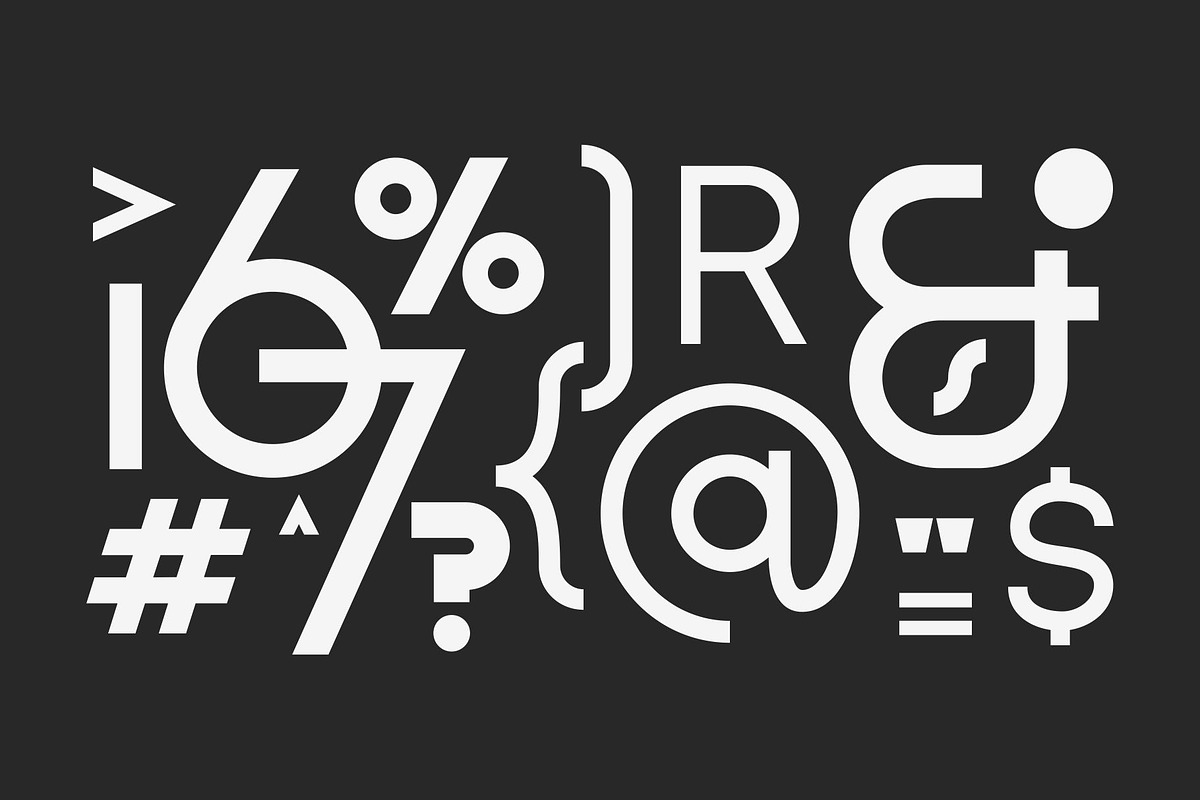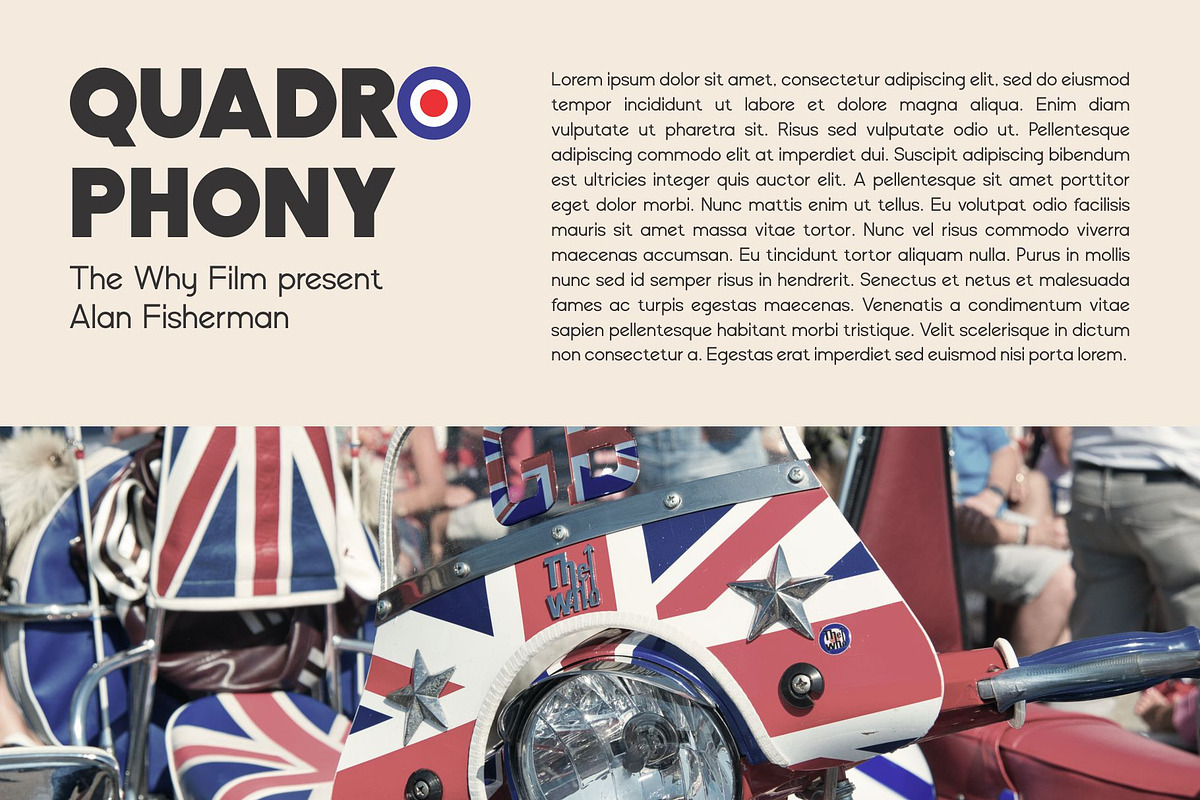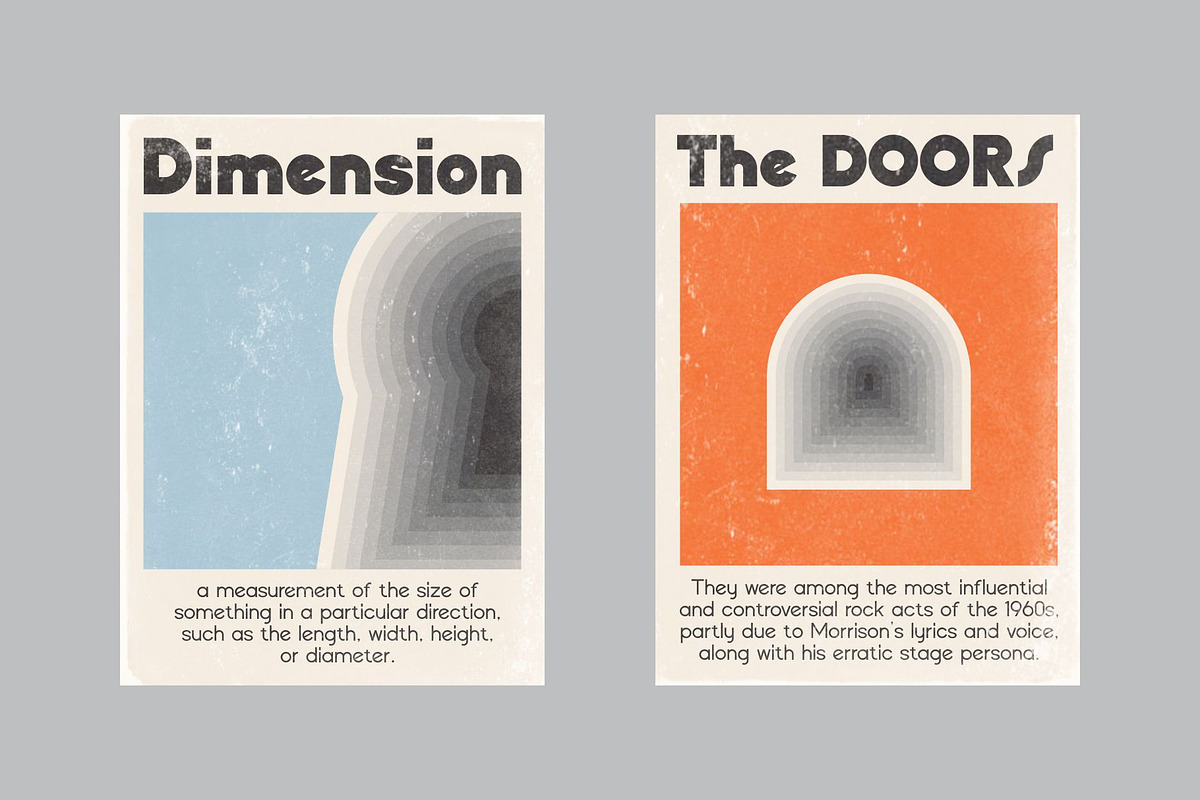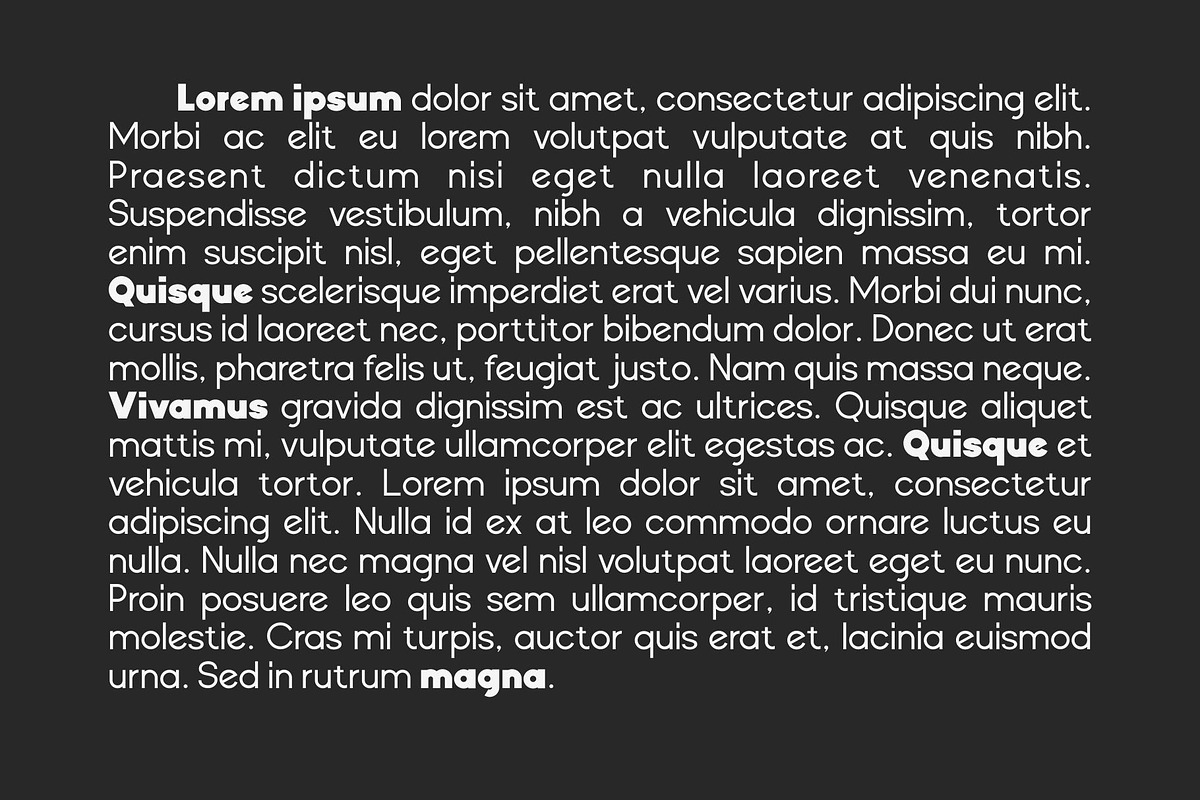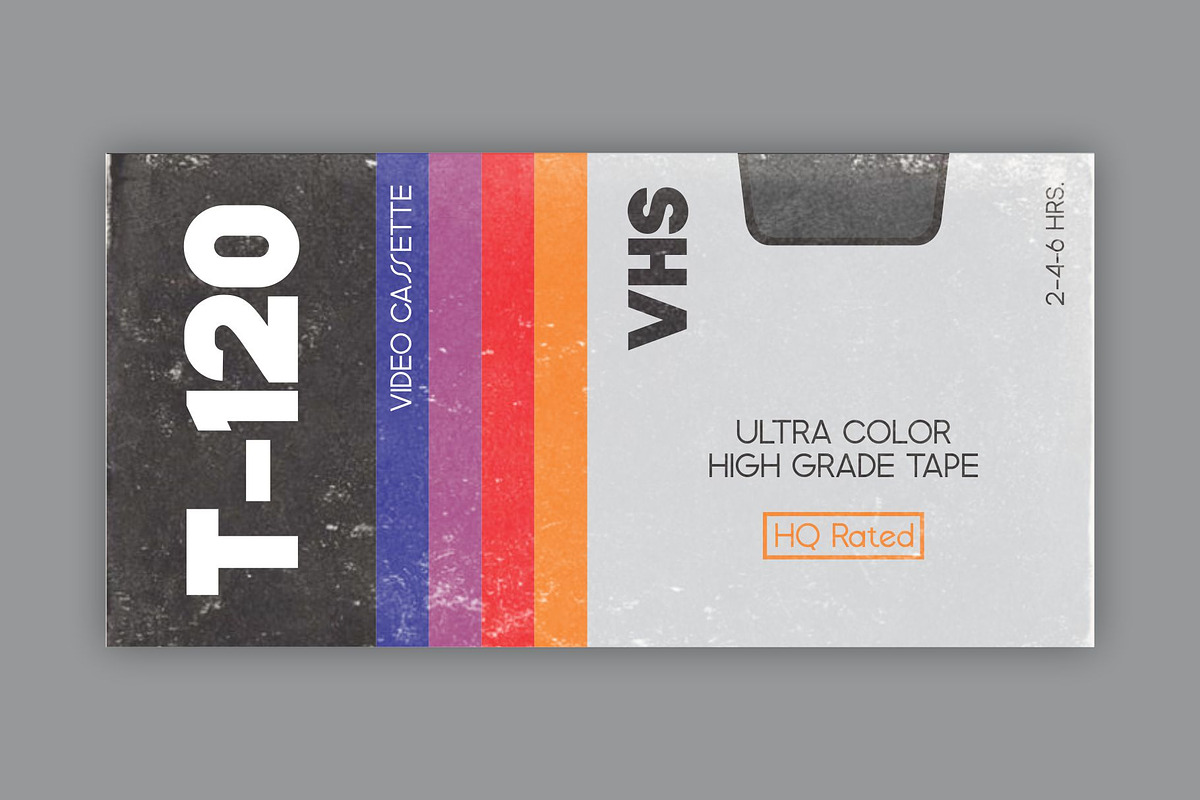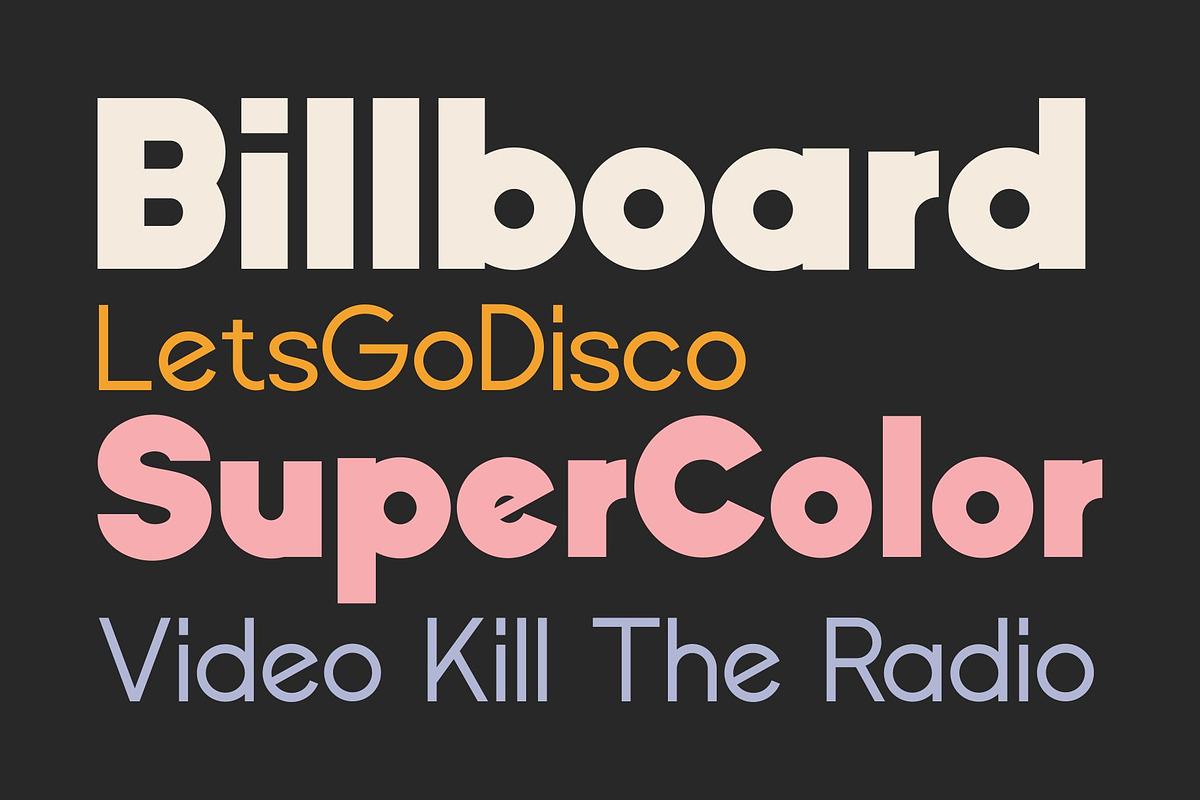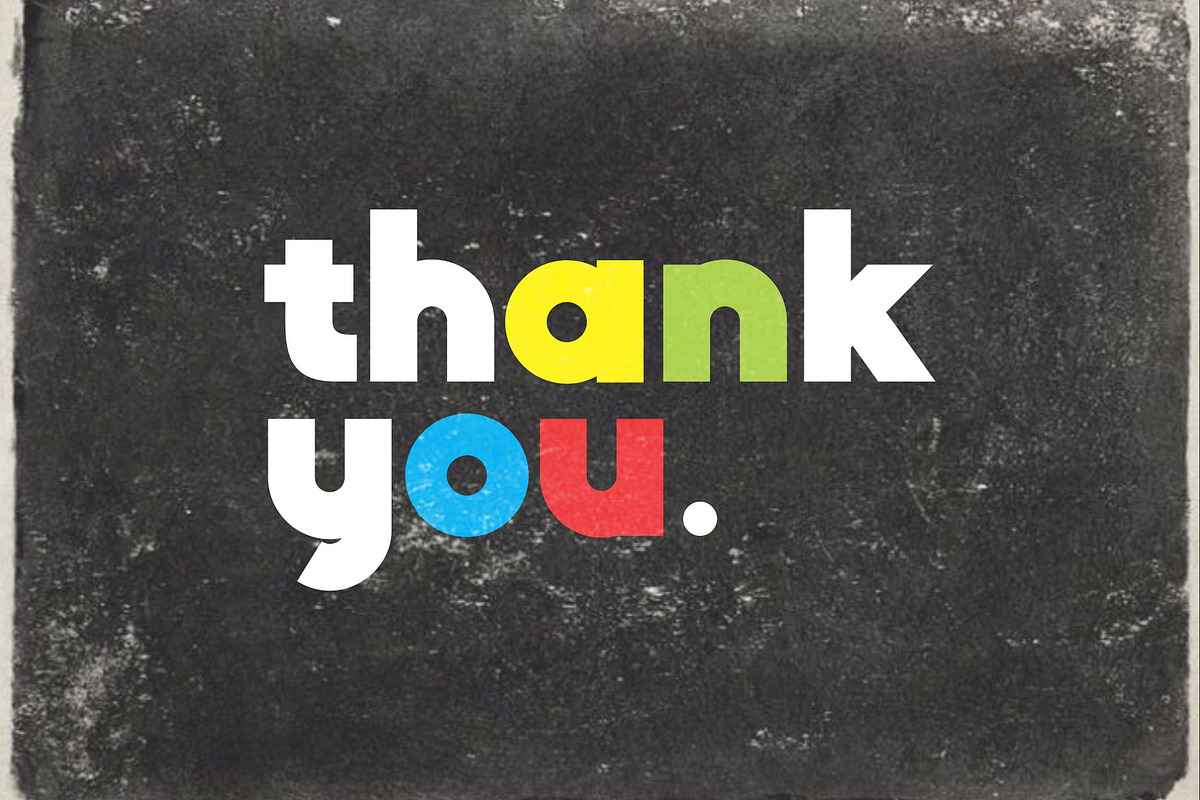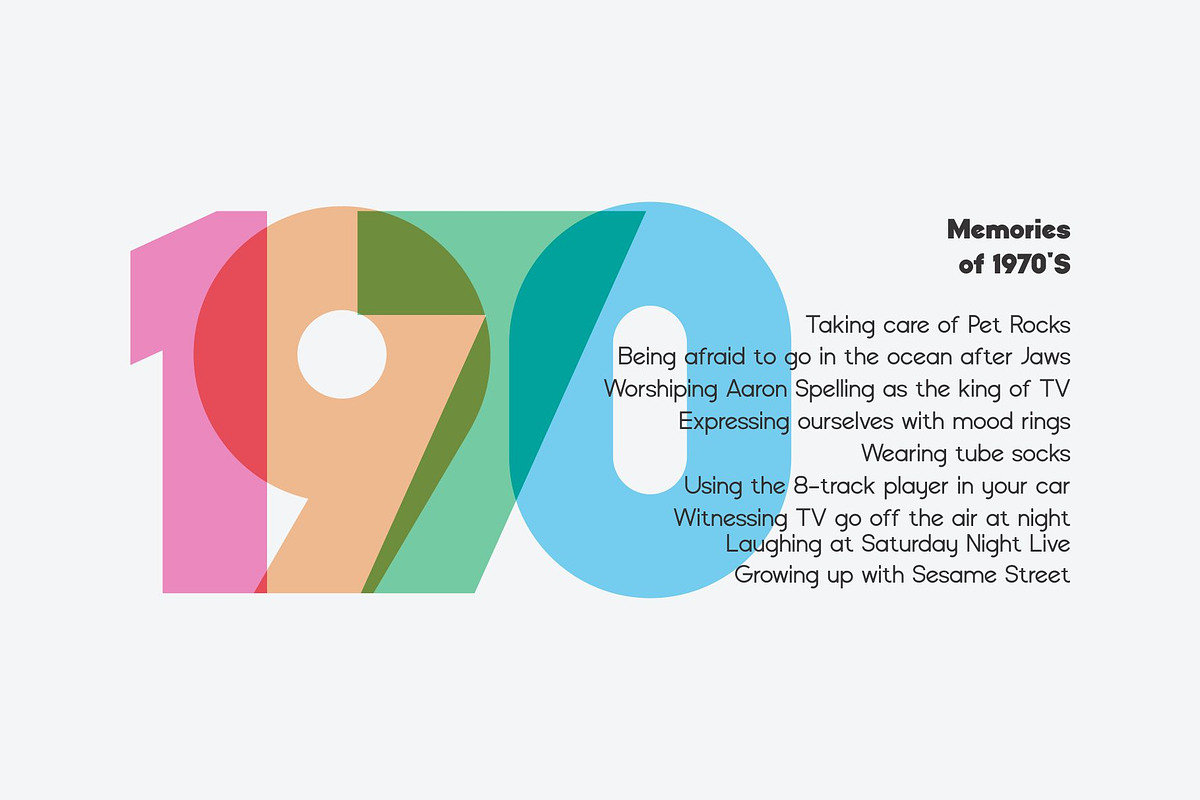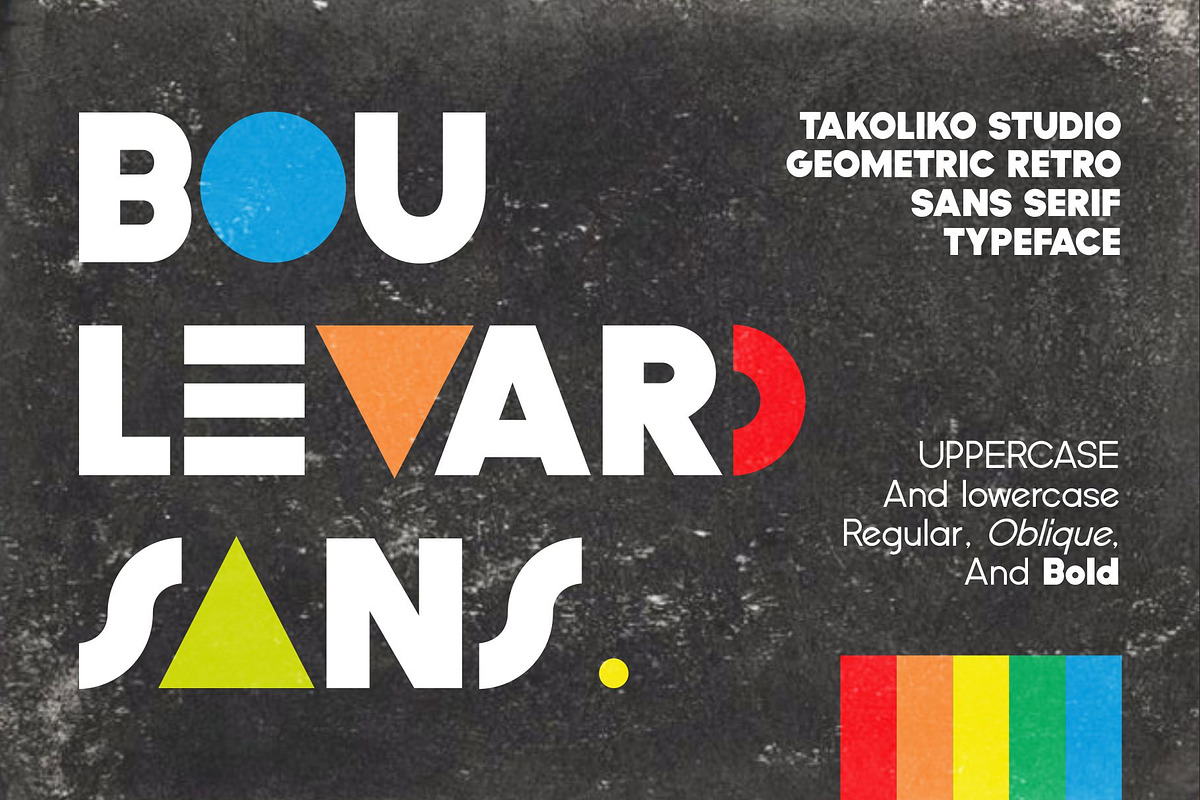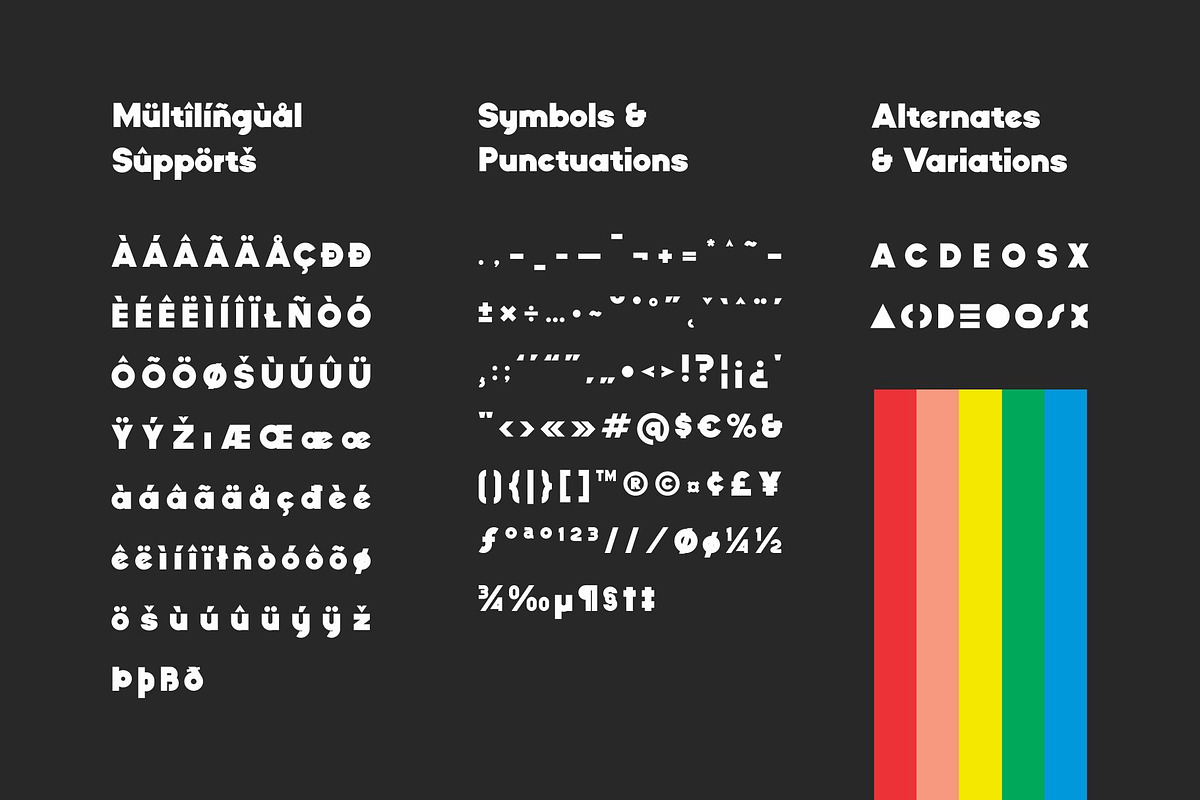
Boulevard Sans
Boulevard Sans is a geometric sans serif typeface with a little bit of retro touch designed by Takoliko Studio. It comes with reguler, Bold, also oblique style for a different feel. Its bold characteristics makes it suitable for attention grabbing design projects such as headlines, posters, social media displays and editorials. You can make a larger approach with the Boulevard family font by combining font style on your project.
- Uppercase and lowercase letters
- 2 font weights with oblique version in each weight
- 2 styles: regular & bold
- Symbol & punctuation
- Alternate & variation